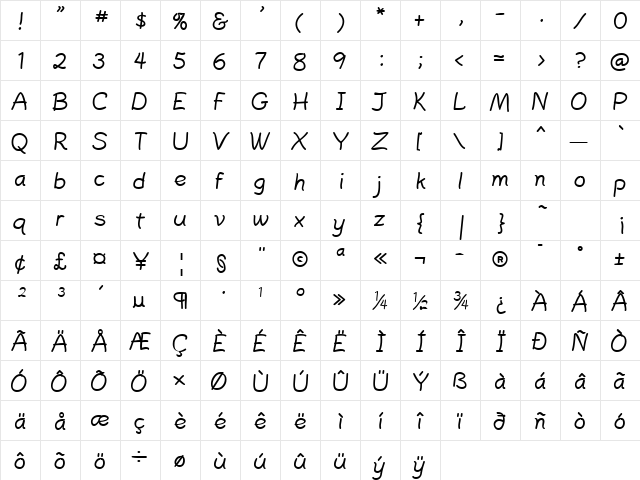
PlainPensle Bold
Design Context for PlainPensle Typeface
PlainPensle takes a measured approach to typography — its balanced proportions and neutral character make it a reliable workhorse for both digital and print work. Its bold stroke weight gives it real presence on the page.